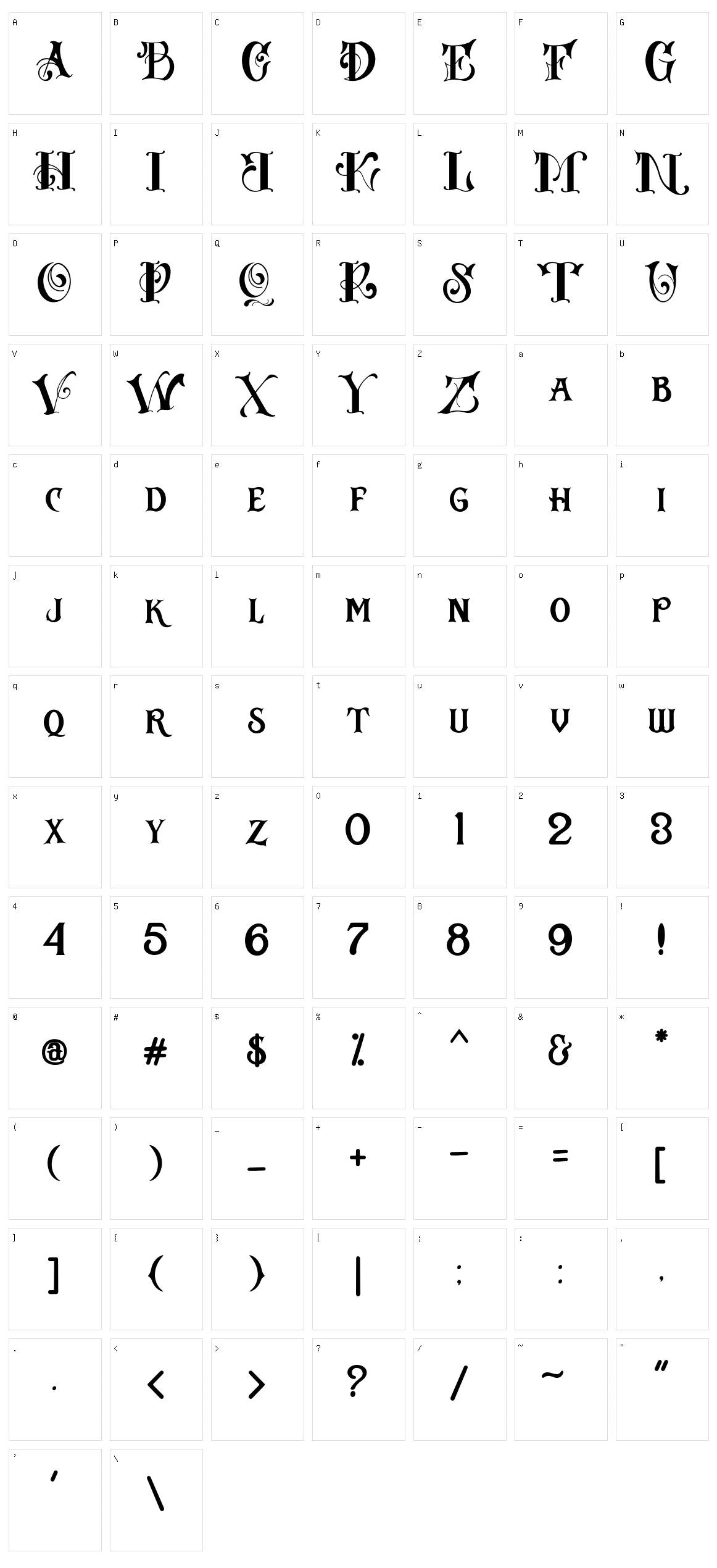
The free font Russel Dexter is carefully designed by StringLabs Creative Studio, showcasing a thoughtful balance of creativity and usability and falls under the Retro font style. When you download the ZIP file, it contains only 78.77 KB of font files, making it lightweight and quick to download. Please review the license details below to understand permitted usage and distribution rights. If license information is not available, we recommend using this font for personal projects only or contacting the author directly for commercial usage permissions.